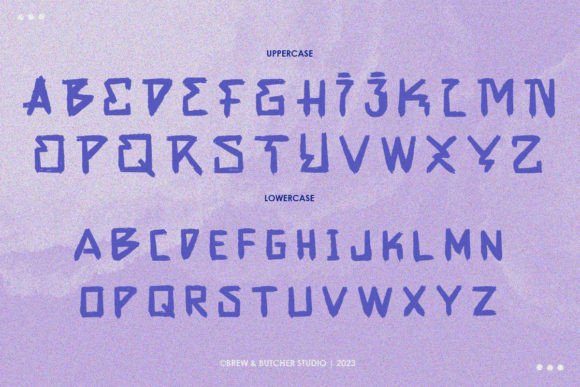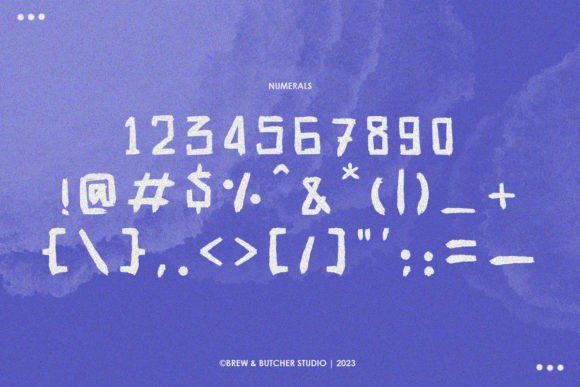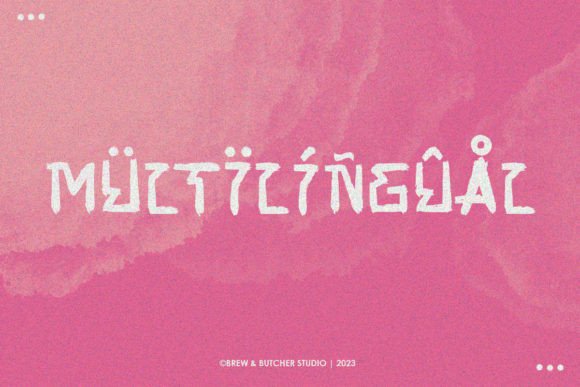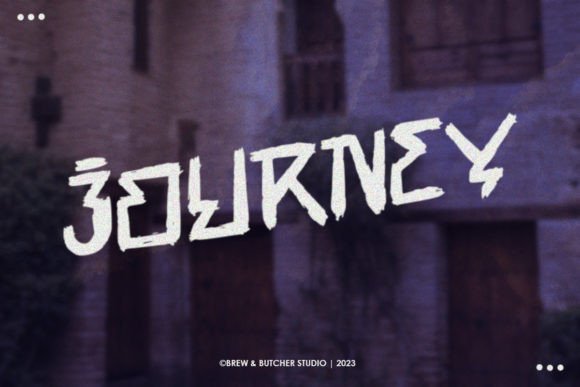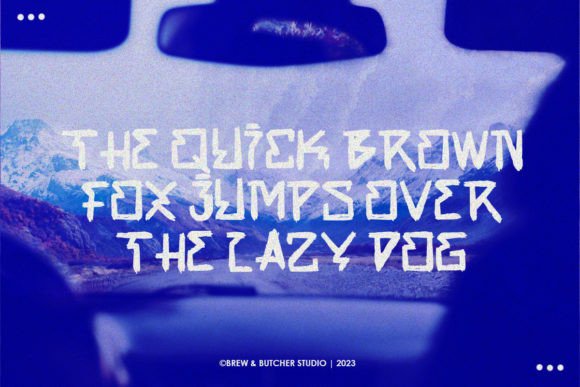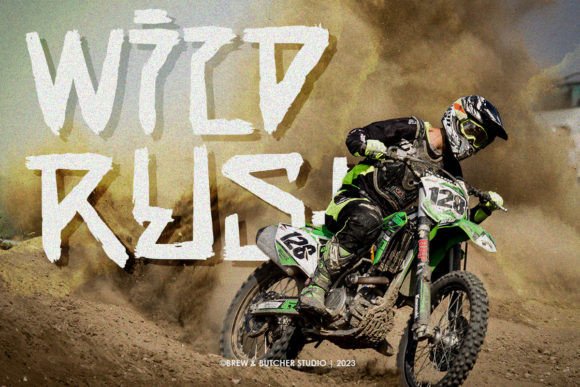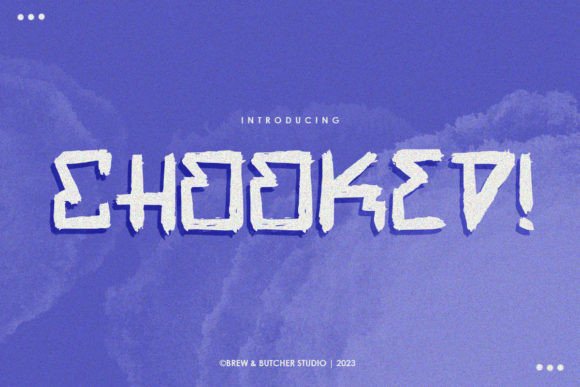
Discover the Chooked Font: A Brushy Texture Letter with a Unique Writing Style
Are you tired of using the same old fonts for your design projects? Look no further than the Chooked Font, a brushy texture letter with a unique form of writing that’s sure to make your work stand out. With its abstract impression and legible design, this font is perfect for designers and crafters looking to add a touch of personality to their projects.
What is Chooked Font?
Chooked Font is a type of brush font that features a distinctive, hand-painted look. Its brushy and thick style gives it a sturdy and sometimes even frightening impression, making it ideal for use in bold and eye-catching designs. Despite its abstract appearance, Chooked Font is still highly legible, making it a versatile choice for a wide range of applications.
Characteristics of Chooked Font
So, what sets Chooked Font apart from other fonts? Here are some of its key characteristics:
- Uniquely written: Chooked Font has a one-of-a-kind writing style that’s sure to grab attention.
- Abstract impression: This font has a distinctive, artistic look that’s perfect for designers who want to add some personality to their work.
- Legible: Despite its abstract appearance, Chooked Font is still highly legible, making it easy to read and understand.
- Brushed texture: The font features a brushed texture that gives it a hand-painted look.
- Thick and sturdy: Chooked Font has a thick and sturdy design that’s perfect for bold and eye-catching applications.
Best Uses for Chooked Font
So, what are some of the best uses for Chooked Font? Here are some ideas to get you started:
- Headers and headlines: Chooked Font is perfect for use in headers and headlines, where its bold and eye-catching design can really make an impact.
- Posters and flyers: This font is also great for use in posters and flyers, where its brushed texture and thick style can add a touch of personality to your design.
- Banners and landing pages: Chooked Font is a great choice for banners and landing pages, where its bold and sturdy design can help grab attention and draw visitors in.
- Portfolios and nameplates: This font is also perfect for use in portfolios and nameplates, where its unique writing style and abstract impression can help you stand out.
- Album covers and music designs: Chooked Font is a great choice for album covers and music designs, where its bold and eye-catching design can help your work stand out.
Tips for Using Chooked Font
Here are some tips for getting the most out of Chooked Font:
- Use it sparingly: Because of its bold and eye-catching design, Chooked Font is best used sparingly. Try using it for headers and headlines, and then switching to a more traditional font for body text.
- Experiment with colors: Chooked Font looks great in a wide range of colors, so don’t be afraid to experiment and find the perfect hue for your design.
- Pair it with other fonts: Chooked Font can be paired with a wide range of other fonts to create a unique and eye-catching design. Try pairing it with a traditional serif font for a bold and contrasting look.
Chooked Font is a unique and versatile font that’s perfect for designers and crafters looking to add a touch of personality to their work. With its abstract impression, legible design, and brushed texture, this font is sure to make your work stand out. Whether you’re designing headers and headlines, posters and flyers, or album covers and music designs, Chooked Font is a great choice. So why not give it a try and see what you can create?